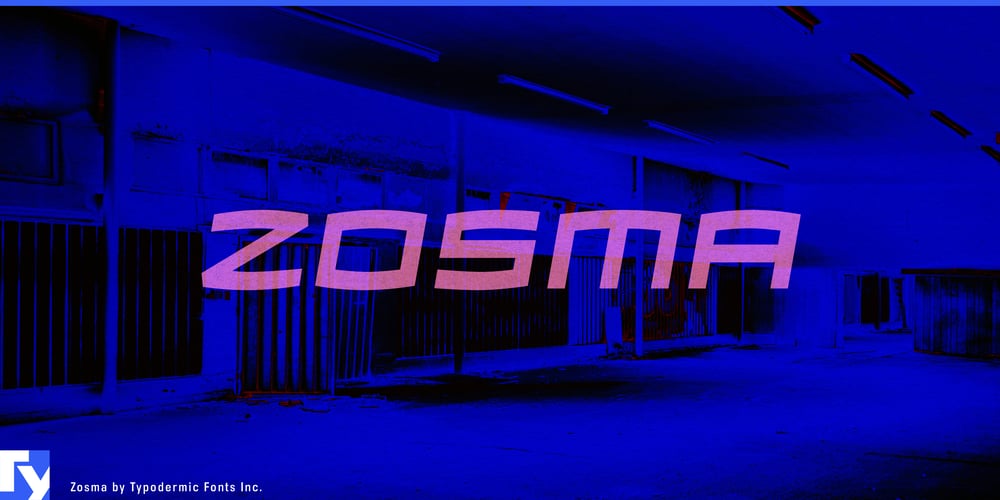
Zosma Font Family was designed by Ray Larabie and published by Typodermic. Zosma contains 6 styles and family package options. Welcome to the cutting edge of typographic technology. Introducing Zosma, the typeface that’s as sleek and efficient as the latest smartphone and as powerful as a next-gen processor. This is a high-performance communication tool designed to elevate your message in the fast-paced world of consumer electronics.Zosma’s letterforms aren’t merely designed; they’re engineered with the precision of a circuit board. Each character is a marvel of form following function, mirroring the clean lines and minimalist aesthetics of today’s most coveted tech gadgets. It’s like having Jony Ive design your typography—every curve and angle optimized for maximum visual impact and readability. But Zosma isn’t just about looks. With three weights and accompanying italics, it offers the versatility of a Swiss Army knife in your typographic toolkit. Need to headline the launch of your revolutionary smart home system? Zosma Bold has you covered. Crafting the UI for your groundbreaking fitness wearable? Zosma Light will keep your design as streamlined as your users’ workouts.Zosma speaks the language of technology fluently, from the programming labs of Silicon Valley to the tech hubs of Shenzhen. Its extensive language support ensures your message comes through loud and clear, whether you’re localizing your app for the European market or designing packaging for a global product launch.Choose Zosma for your next project, and watch as your designs transform from mere text to a user interface for ideas. It’s a commitment to clarity, a statement of technological prowess, and a beacon for forward-thinking design.